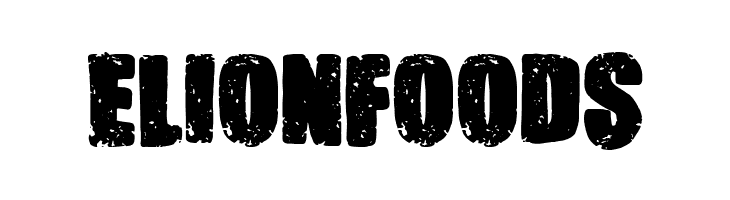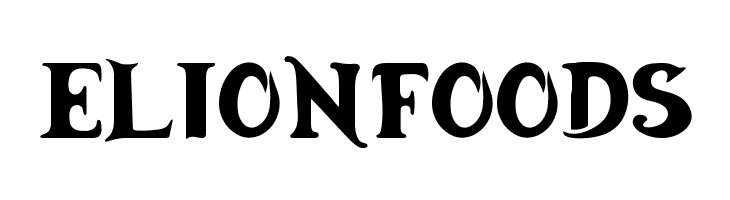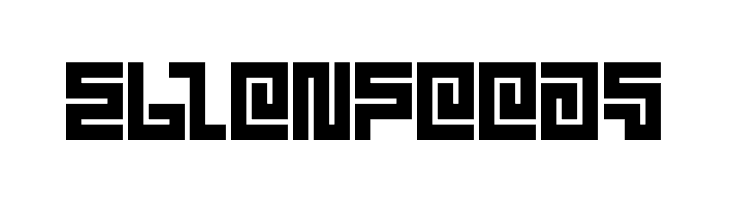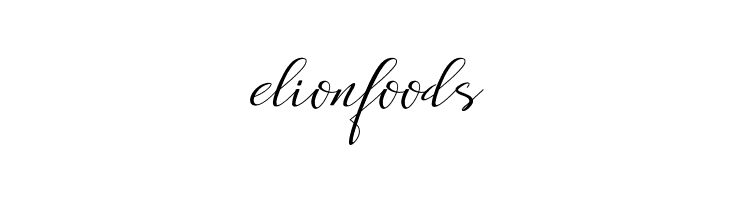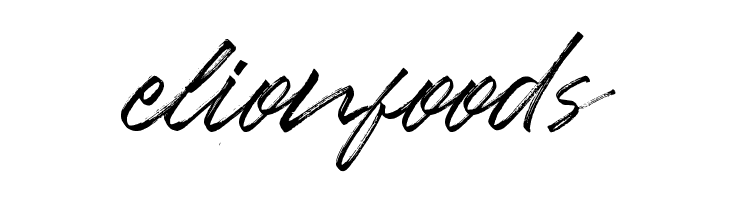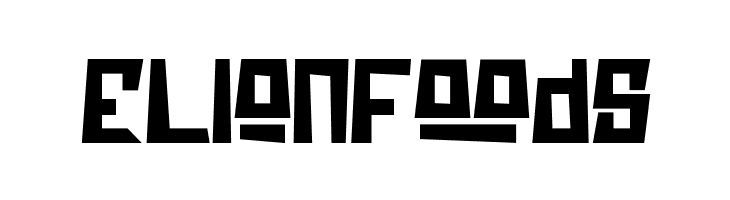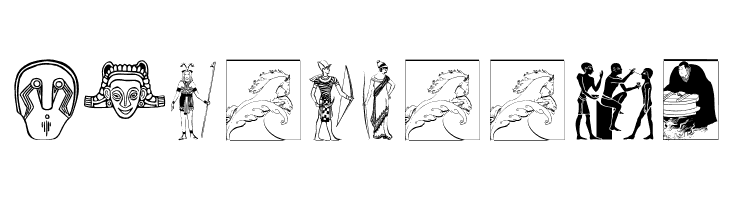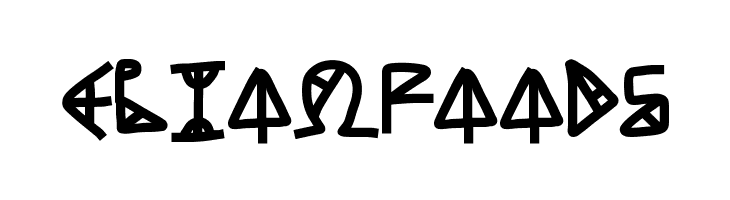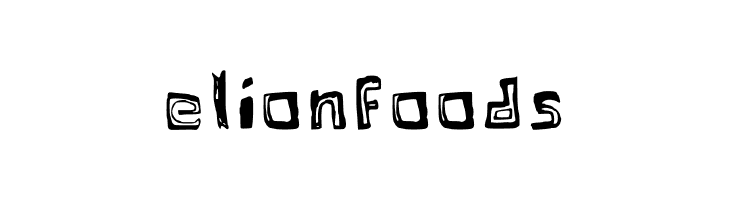
An elegant, cursive font with flowing, ornate letters.
A dynamic, expressive handwritten font with fluid strokes and natural flow.
A bold, ancient-inspired font with geometric shapes and intricate detailing.
A bold, distressed font with a rugged, ancient appearance.
A bold, geometric font with a futuristic, digital aesthetic.
A bold, angular font with a modern geometric style.
A bold, dramatic font with angular serifs and sweeping strokes.
Ancient-themed dingbat font with detailed line art illustrations.